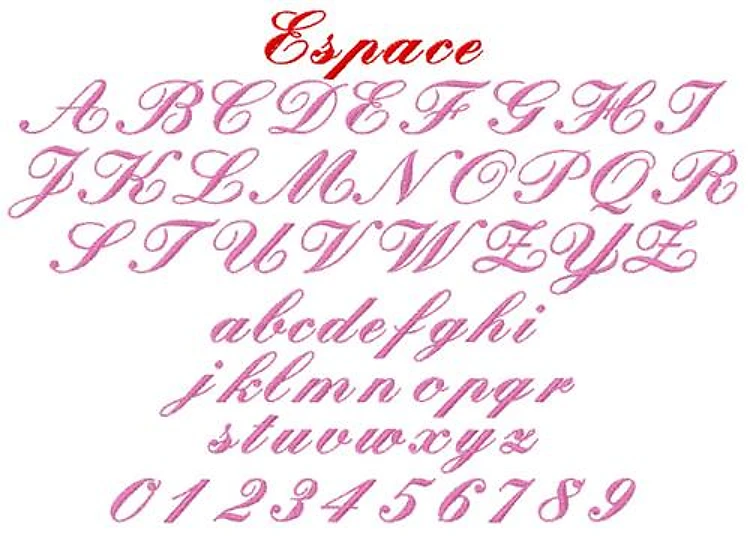
Internet Stitch is happy to present Espace machine embroidery font which has Flowing script machine embroidery font suitable for creating stylish accents on home decor items like cushions or tablecloths. Available in ELP format. included. If you would like to view more embroidery fonts and alphabets please search our embroidery fonts page.